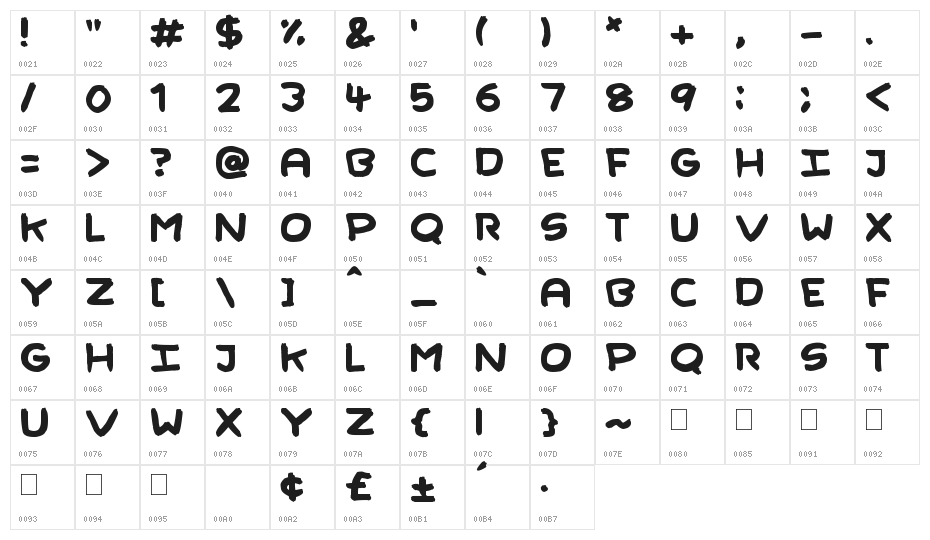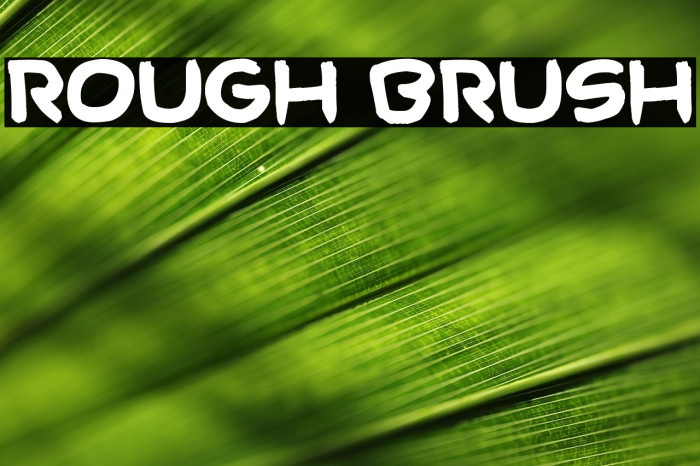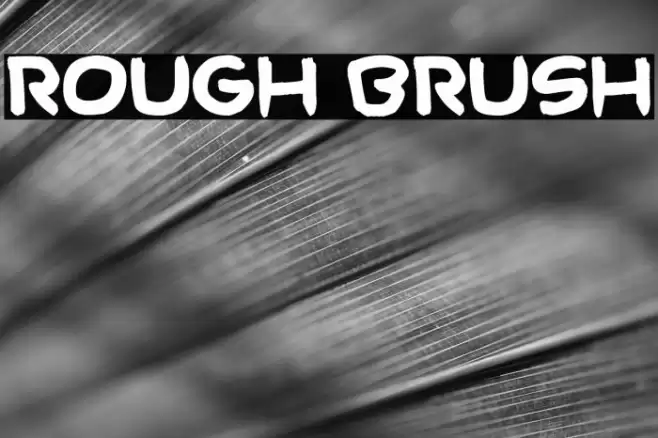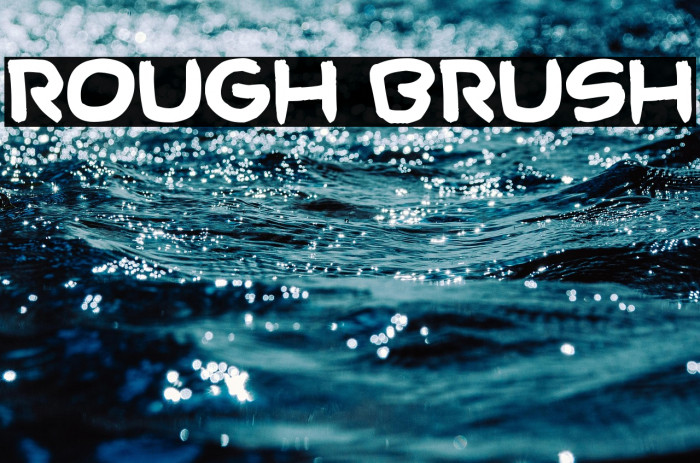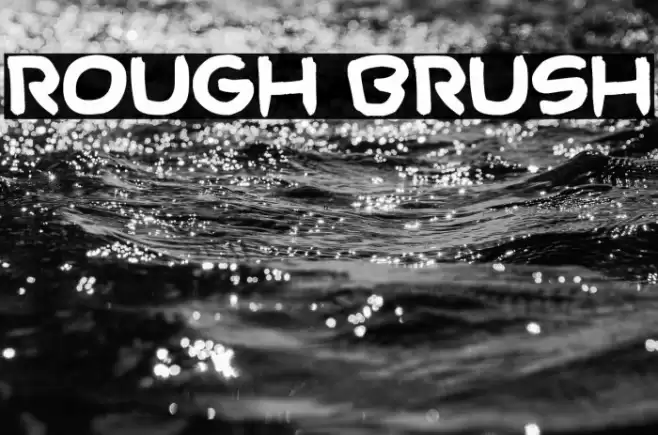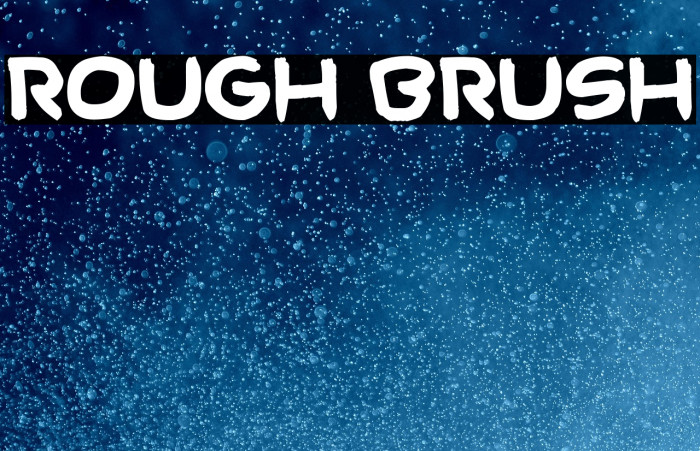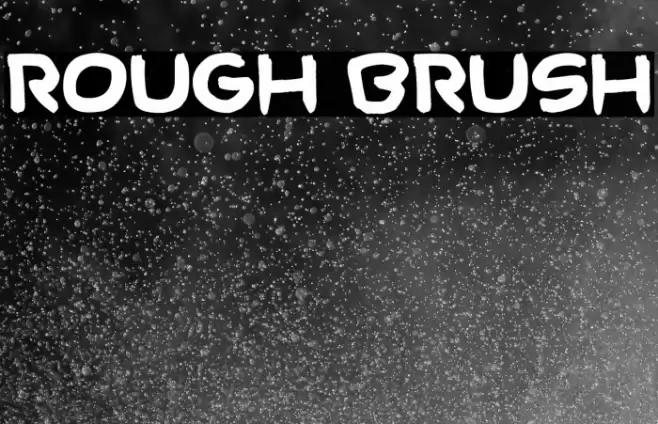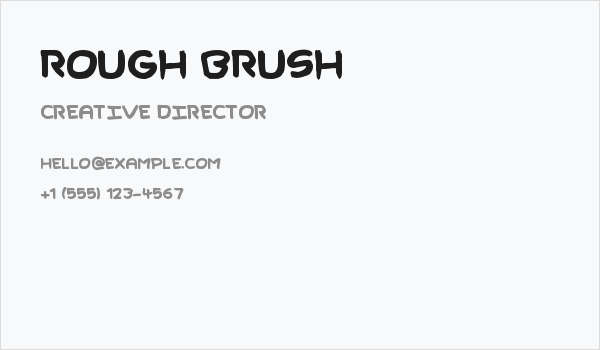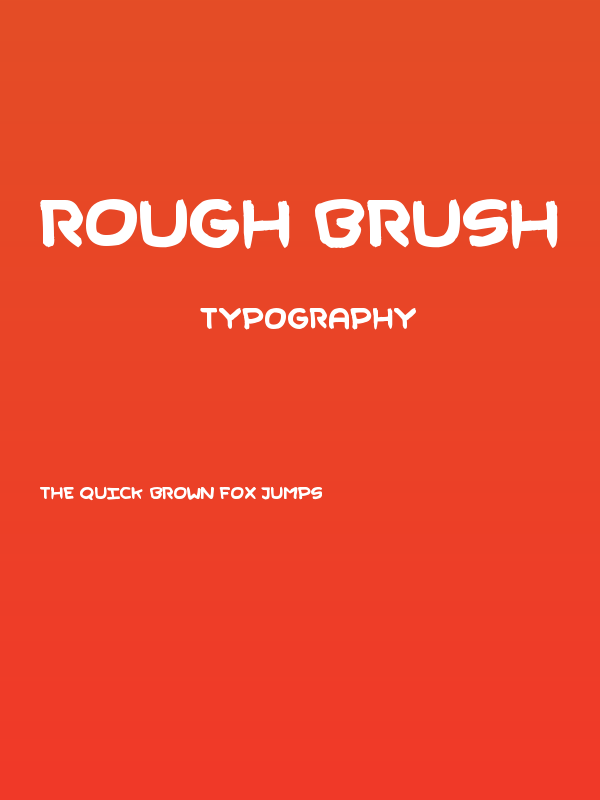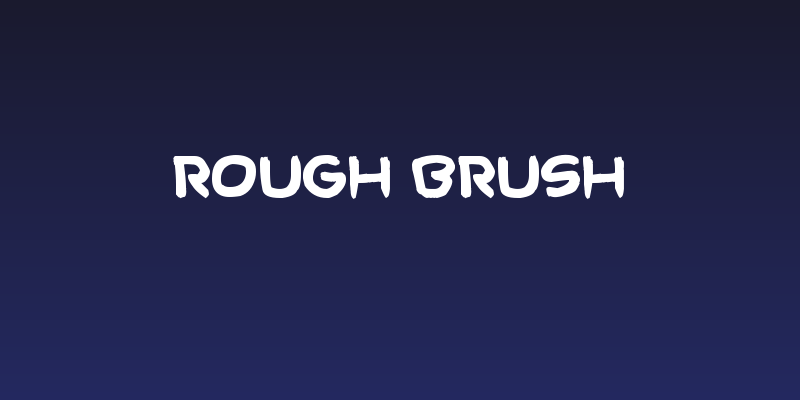
Rough Brush Font
Rough Brush Description
This font exhibits a bold, energetic style with a hand-painted appearance. Each character is crafted with a rough, brush-like texture, giving it a dynamic and artistic feel. The strokes are thick and uneven, adding to its informal and expressive nature. The uppercase and lowercase letters maintain a consistent style, while the numerals and special characters complement the overall aesthetic. This font is ideal for projects that require a personal touch or a creative flair, such as posters, artistic branding, or event invitations.
| Use Case | Headlines, Logos, Artistic projects |
| Proposed Projects | Ideal for posters, artistic branding, event invitations, and creative projects. |